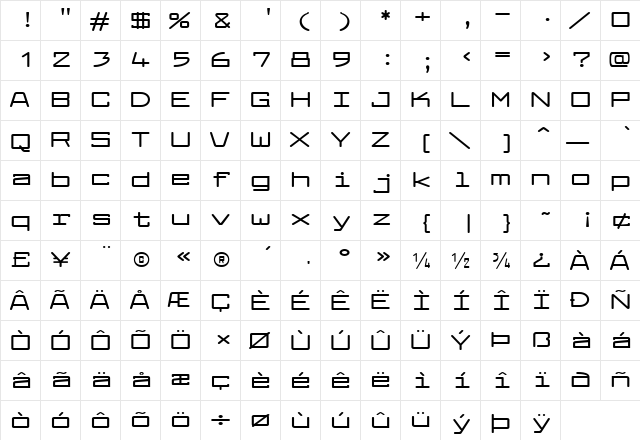
Larabiefont Xtrawide Bold
Design Context for Larabiefont Xtrawide Typeface
Larabiefont Xtrawide offers clean, dependable letterforms without strong stylistic allegiance, making it a practical choice for designers who need flexibility. Its bold stroke weight gives it real presence on the page.